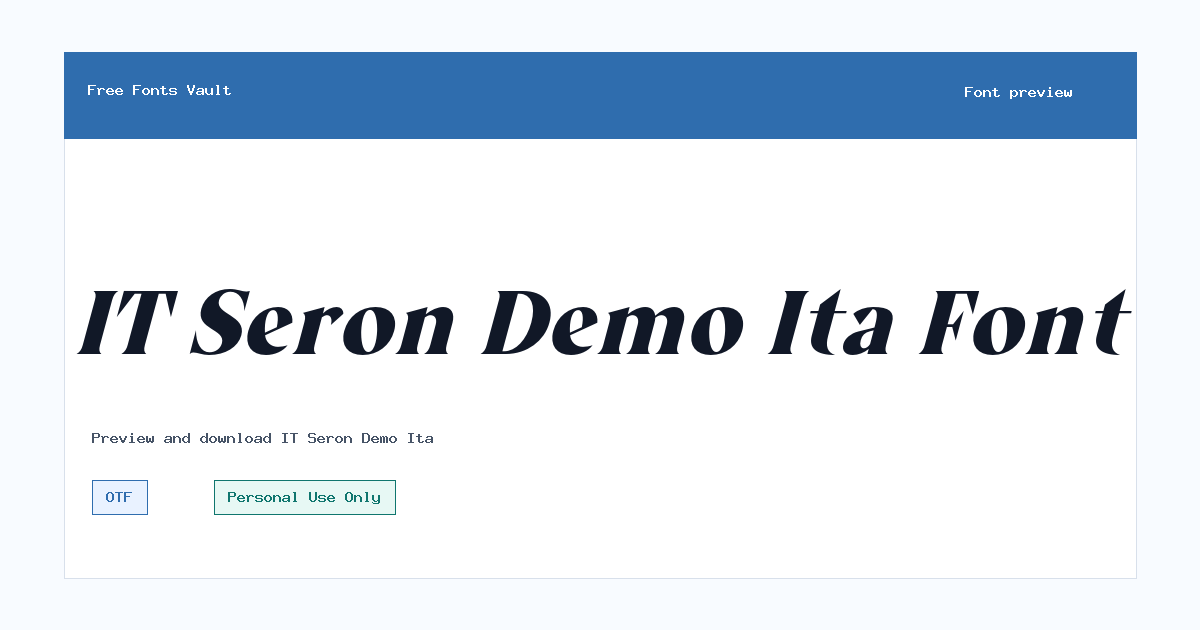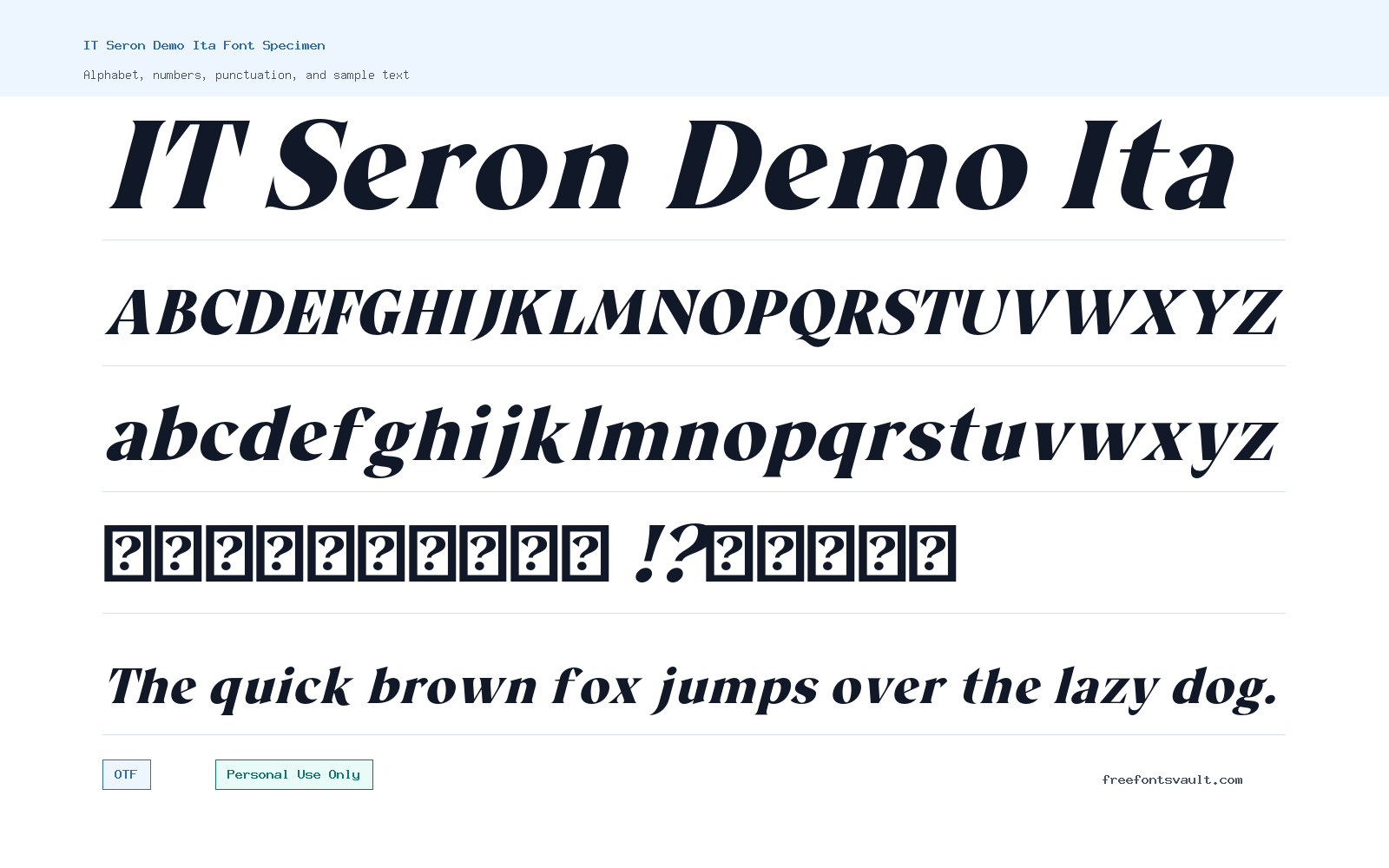
IT Seron Demo Ita
IT Seron Demo Ita Font
IT Seron Demo Ita is an italic demo font with a serif direction, made for visitors who want to test elegant slanted letterforms before using them in personal design work.
About IT Seron Demo Ita
IT Seron Demo Ita is best approached as a display-friendly italic font rather than a general body-text workhorse. The name and file details point to an italic OTF cut, so it is most useful when you need motion, emphasis, or a refined editorial feel in short pieces of text. Try it with names, titles, pull quotes, invitation-style wording, social graphics, mood boards, and poster headlines. Because the font is marked as a demo, it is smart to test the full character set you need before committing to a layout. Check uppercase, lowercase, numbers, punctuation, and any accented characters that matter for your project.
For logo work, IT Seron Demo Ita may be useful in early personal concepts, especially when you want a graceful italic wordmark or a softer serif accent. Keep the words short and test several sizes, because italic serif fonts can lose clarity when the spacing is too tight or the text is reduced. For posters and web mockups, use it as a headline, subheading, signature-style accent, or quote treatment rather than long paragraphs. If you are building a brand presentation, pair it with a quiet sans serif or a simple text serif so the italic style remains the focus. Avoid pairing it with another decorative script or highly expressive serif unless the design is intentionally ornate.
• Regular 400 weight styling with an italic posture.
• Practical for testing refined serif-style headlines, quotes, names, and mockups.
• Works best when paired with a simpler companion font for balance.
• Personal poster titles and quote graphics
• Elegant invitation or announcement mockups
• Editorial-style headings and pull quotes
• Pinterest pins, mood boards, and social media layouts
• Web design mockups that need a refined italic accent
• Short name treatments, signatures, and display words
The designer is listed as Indotype, and the foundry is listed as Indotype Foundry.
Use IT Seron Demo Ita for short, expressive text where the italic shape can be seen clearly. Test your exact wording in the preview before downloading, especially if you need numbers, punctuation, multilingual characters, or tight logo-style spacing. For clean layouts, pair it with a neutral sans serif for body copy and keep this font for the main accent.
Is IT Seron Demo Ita an italic font?
Yes. The listed file and style information identify it as an italic font.
What kind of designs suit this font?
It is best for short text such as titles, names, quotes, poster headings, social graphics, invitation mockups, and refined web or branding drafts.
What should I pair with IT Seron Demo Ita?
Pair it with a simple sans serif or a plain text serif. That keeps the italic font readable and prevents the layout from feeling too busy.
Should I use it for long paragraphs?
It is better for short display text. For longer reading, choose a more neutral body font and use IT Seron Demo Ita as an accent.